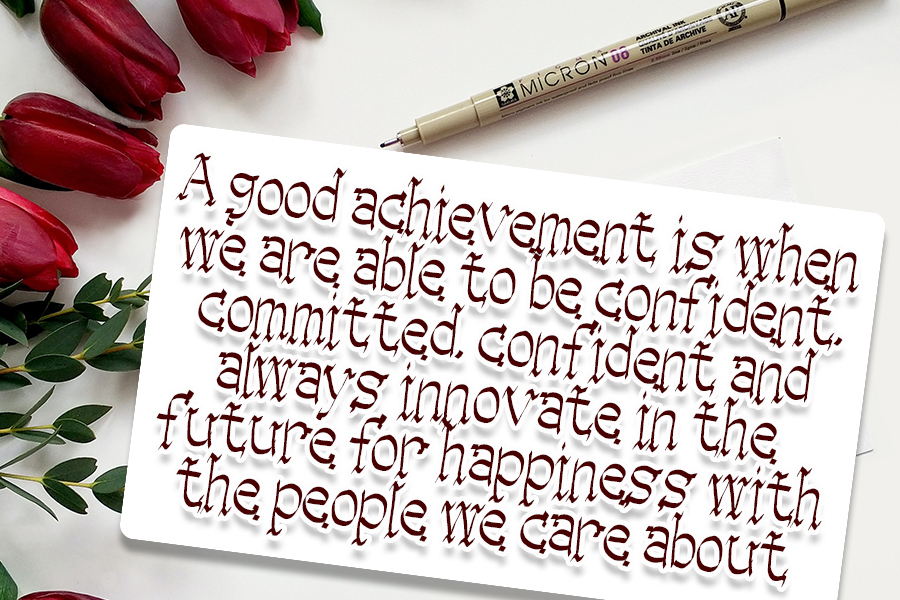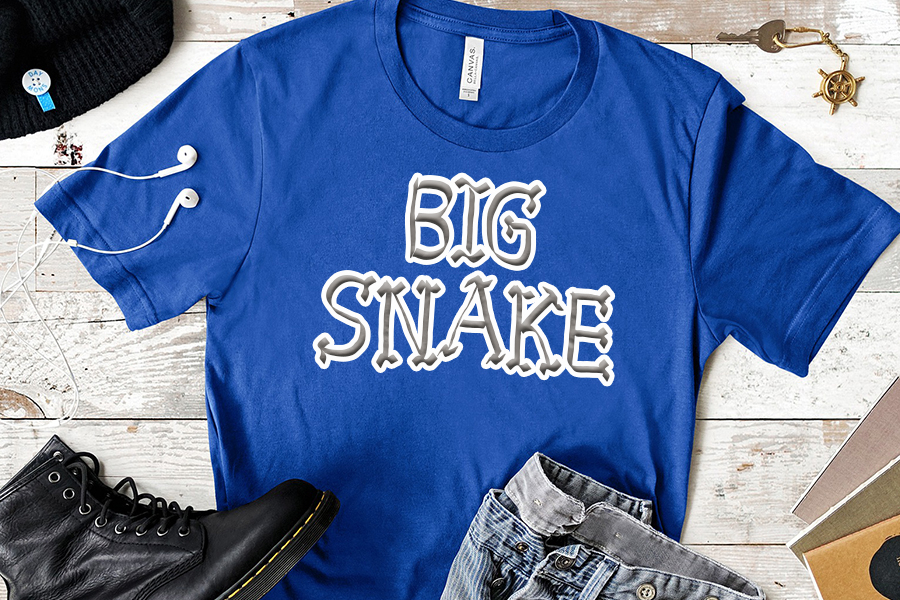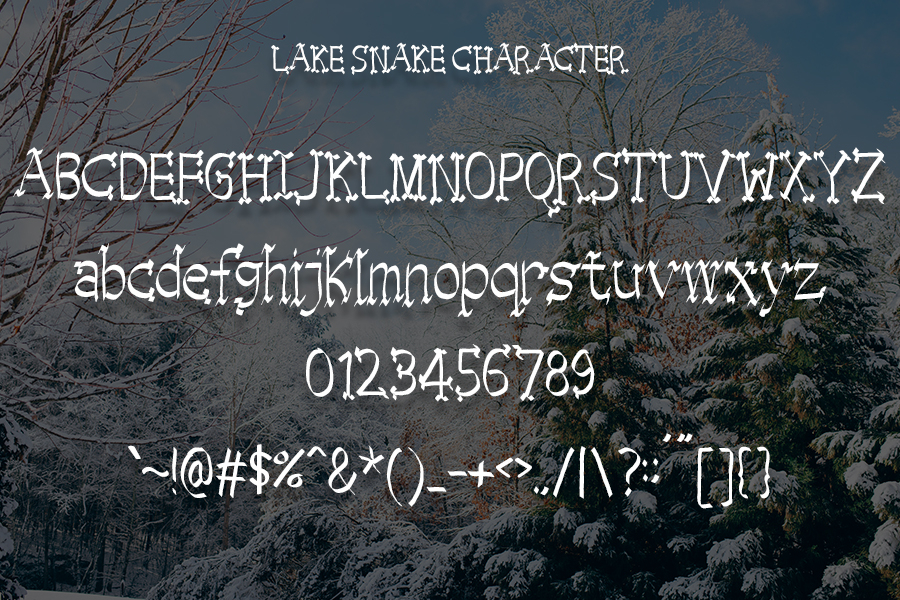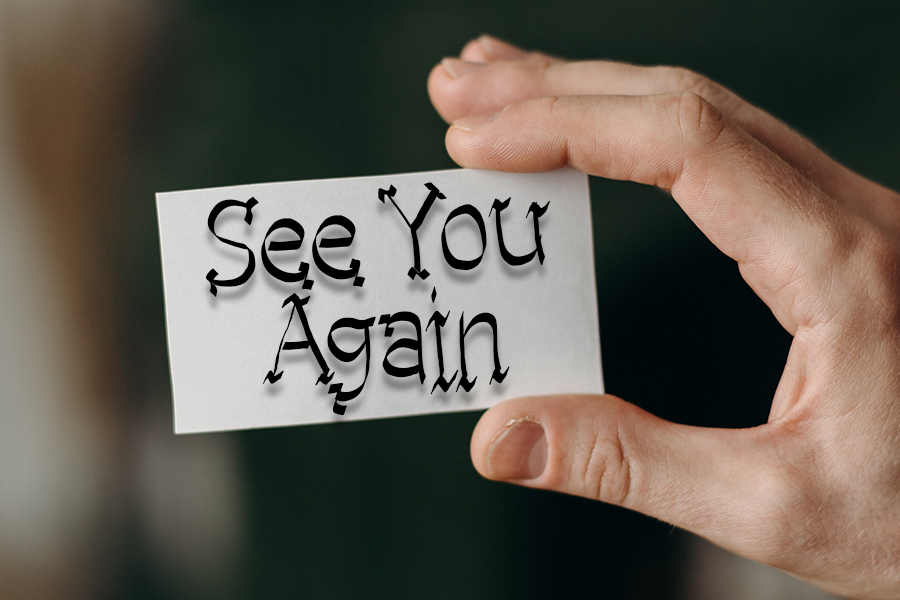
Lake Snake Font
About Lake Snake Font
Lake Snake is a simple and neat blackletter font, featuring the perfect amount of trendiness. Whether you’re using it for crafting, digital designing, presentations or greeting cards making, it’s perfect!